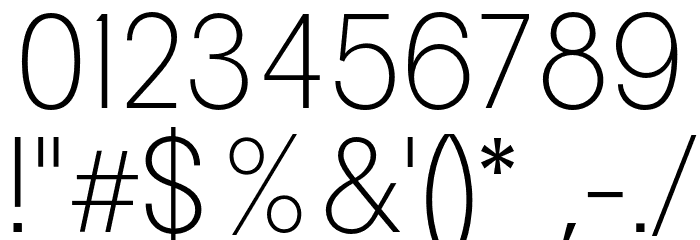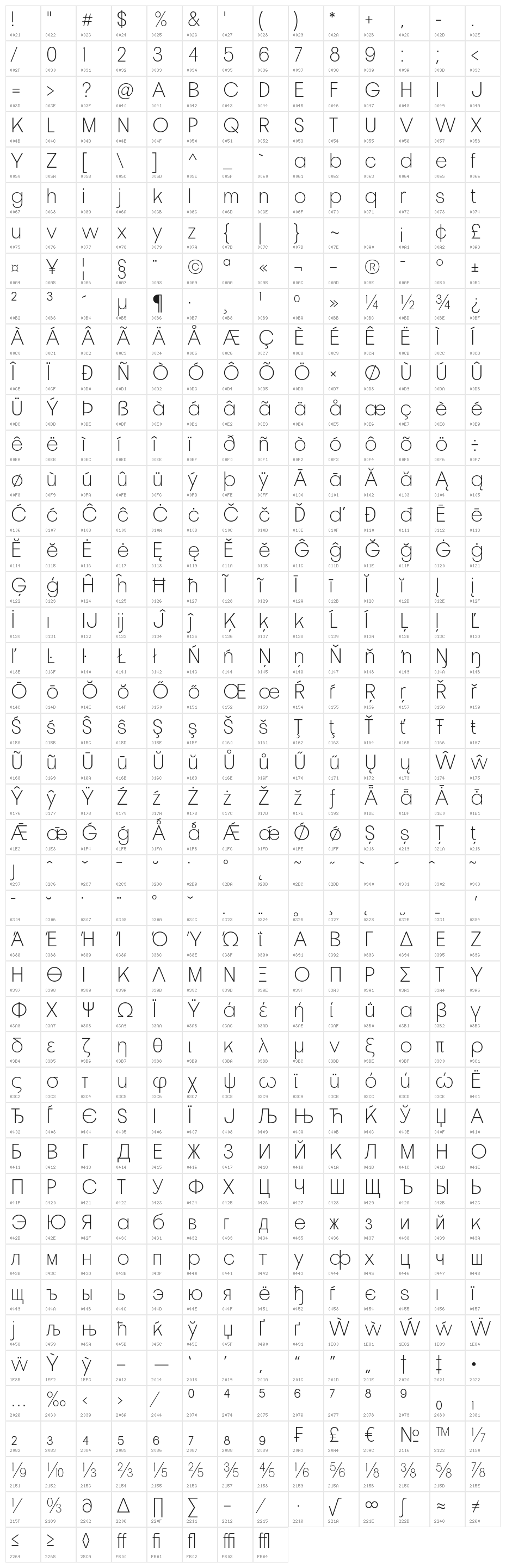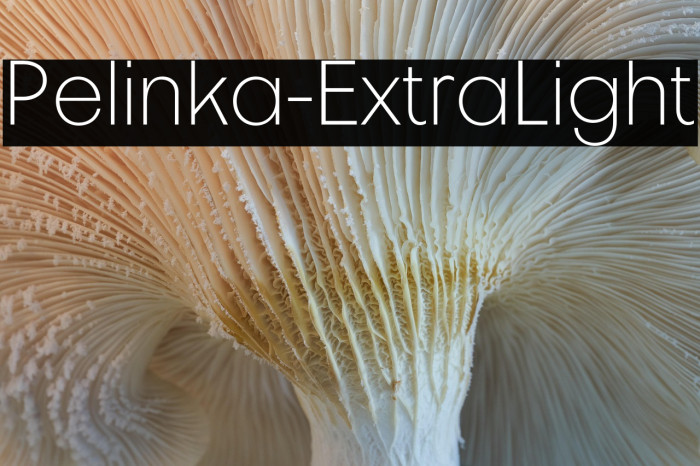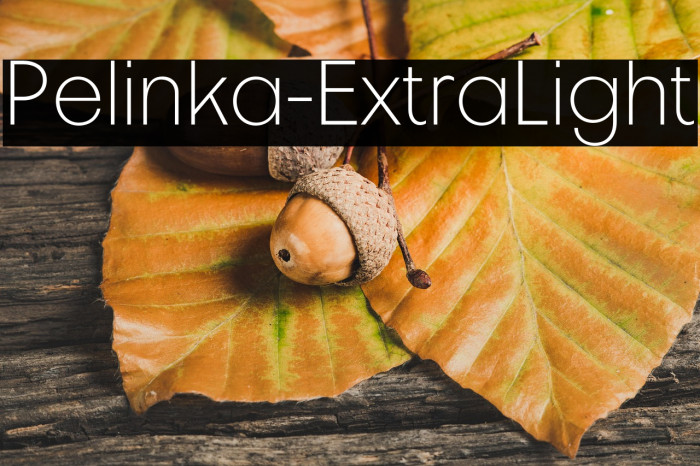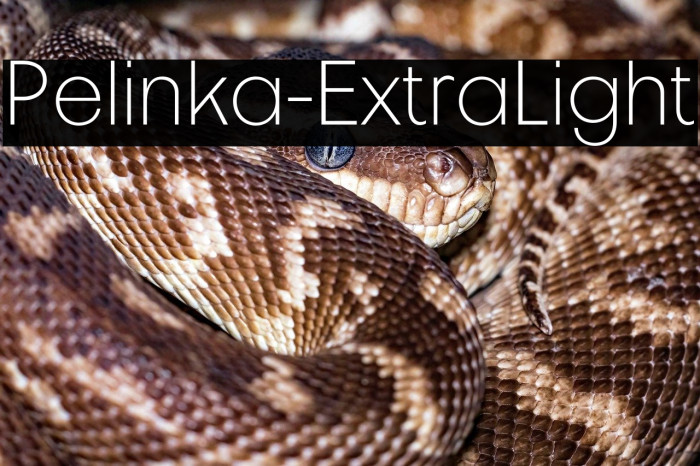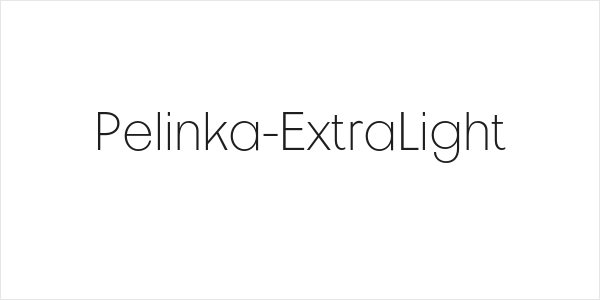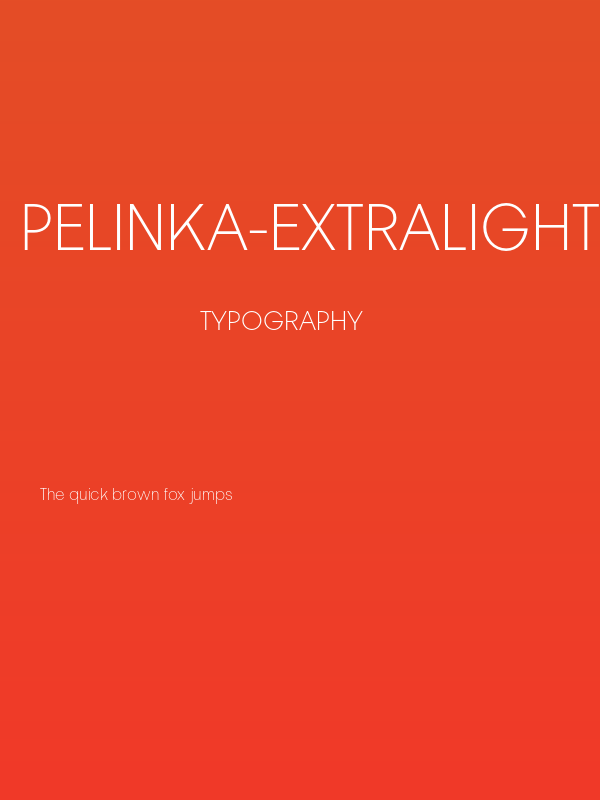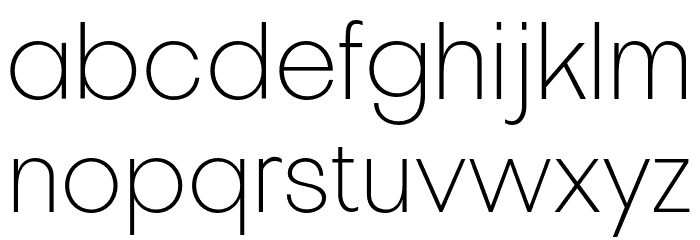
Pelinka-ExtraLight Font
Pelinka-ExtraLight Description
This font exhibits a clean and modern sans-serif style, characterized by its extra-light weight and minimalistic design. The characters are evenly spaced, providing a harmonious and balanced appearance. The uppercase and lowercase letters maintain a consistent geometric form, with smooth curves and straight lines that enhance readability. The numerals are clear and distinct, matching the overall aesthetic of the font. Special characters are elegantly integrated, maintaining the font's sleek and contemporary look. This font is ideal for projects that require a sophisticated and understated typeface.